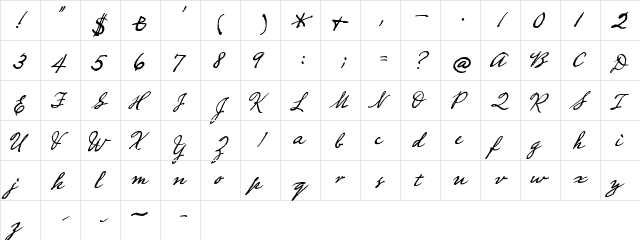
Dead Man's Hand WF Regular
| Designer | Walden Font Co. |
Design Context for Dead Man's Hand WF Typeface
Dead Man's Hand WF flows with the natural rhythm of handwritten lettering, making it ideal for designs that call for warmth and personal expression.